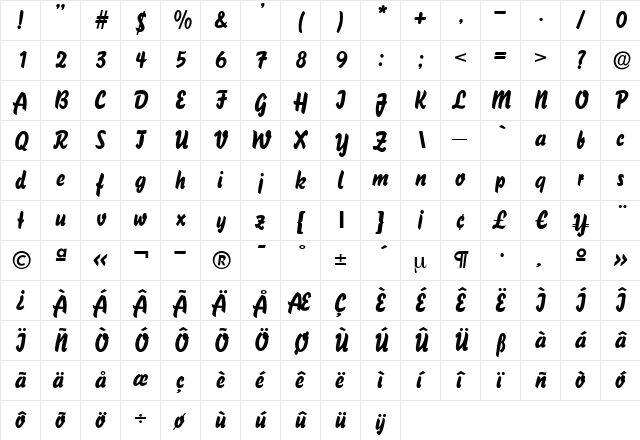
GabrielaBecker Regular
Design Context for GabrielaBecker Typeface
GabrielaBecker is a composed and adaptable typeface that performs quietly and consistently across a wide range of design contexts.